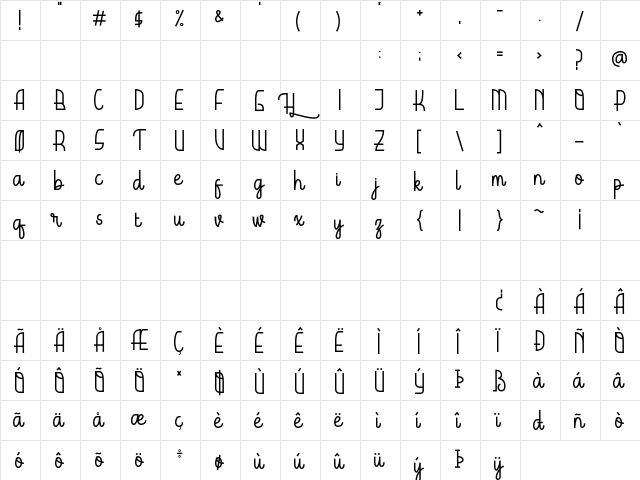
Hardolyn [Demo] Regular
| Foundry | Gartype Studio |
| Designer | Gumilang Anggara Ruslan |
Design Context for Hardolyn [Demo] Typeface
Hardolyn [Demo] is a composed and adaptable typeface that performs quietly and consistently across a wide range of design contexts.